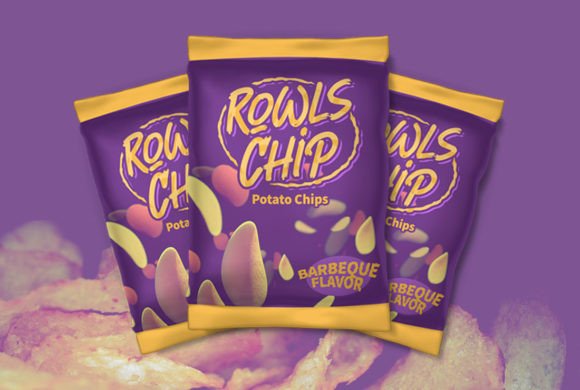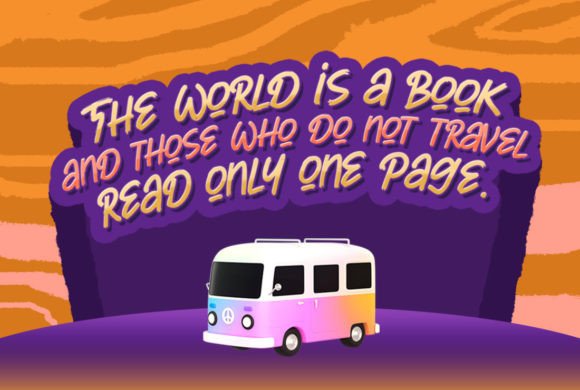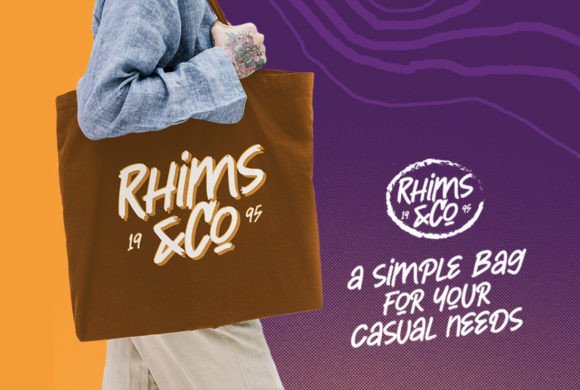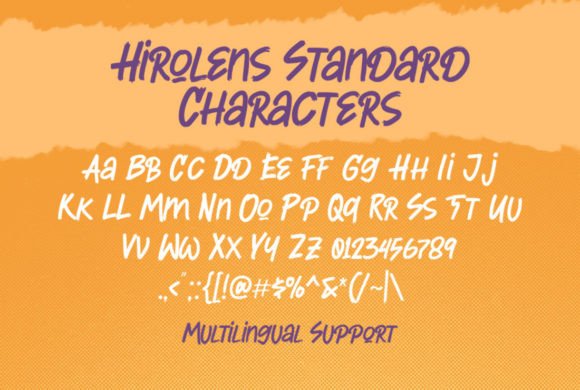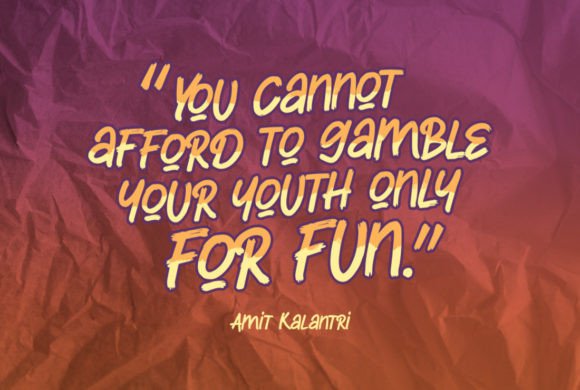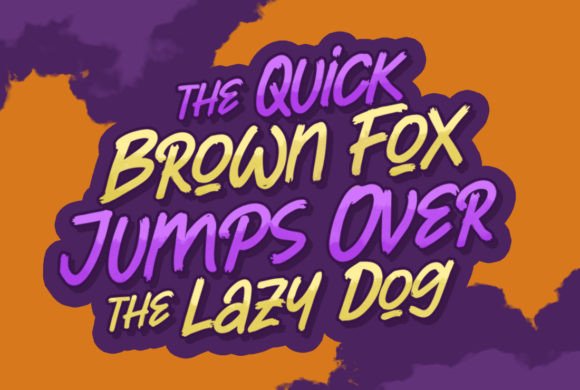
Introduction to Hirolens Font
As a designer, there’s nothing quite like the rush of excitement that comes with discovering a new, high-quality font to elevate your creative project. It’s like stumbling upon a hidden treasure that brings your entire design to life. For me, that moment happened when I first laid eyes on the Hirolens Font – a display brush script font that exudes a playful, whimsical charm.
Masterfully designed to bring your ideas to the forefront, the Hirolens Font is a true gem in the world of design resources. Its unique blend of elegance and playfulness makes it the perfect addition to any project, from branding to digital art. Whether you’re a seasoned pro or just starting out, this font is sure to become a trusted companion in your creative journey.
Honest Review: Hirolens Font
I recently stumbled upon the Hirolens Font, a high-quality design resource that has become an essential addition to my creative project arsenal. The font’s clean and modern aesthetic makes it perfect for a wide range of applications, from branding to digital design.
One of the limitations of the Hirolens Font is its limited character set. While it’s perfect for short text-based projects, it may not be suitable for longer-form content. Additionally, the font’s bold weight is not as robust as some other fonts in its class.
Overall, I’m impressed with the Hirolens Font and would highly recommend it to designers looking for a high-quality, free design resource. With its clean design and versatile application, it’s an essential addition to any creative project.
The Hirolens Font is ideal for a variety of applications, including logo design, brochures, business cards, and social media graphics.